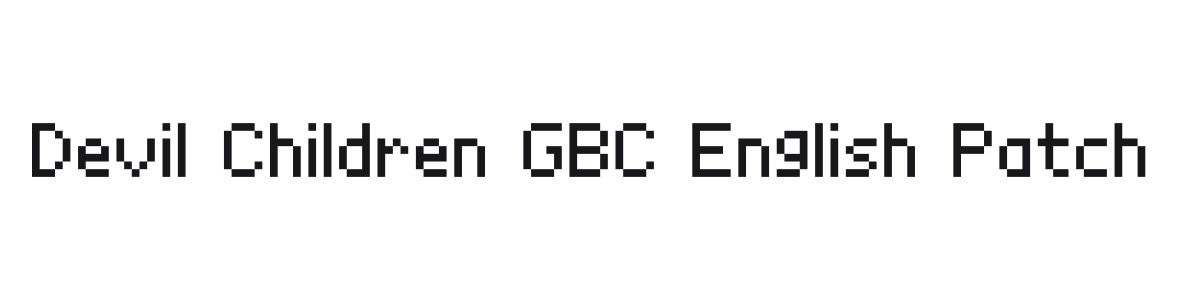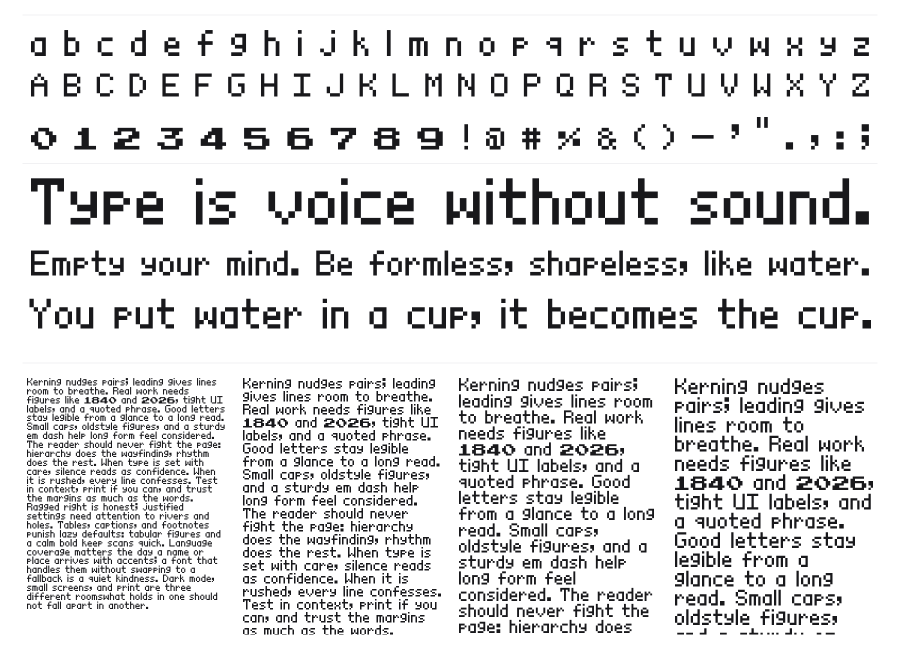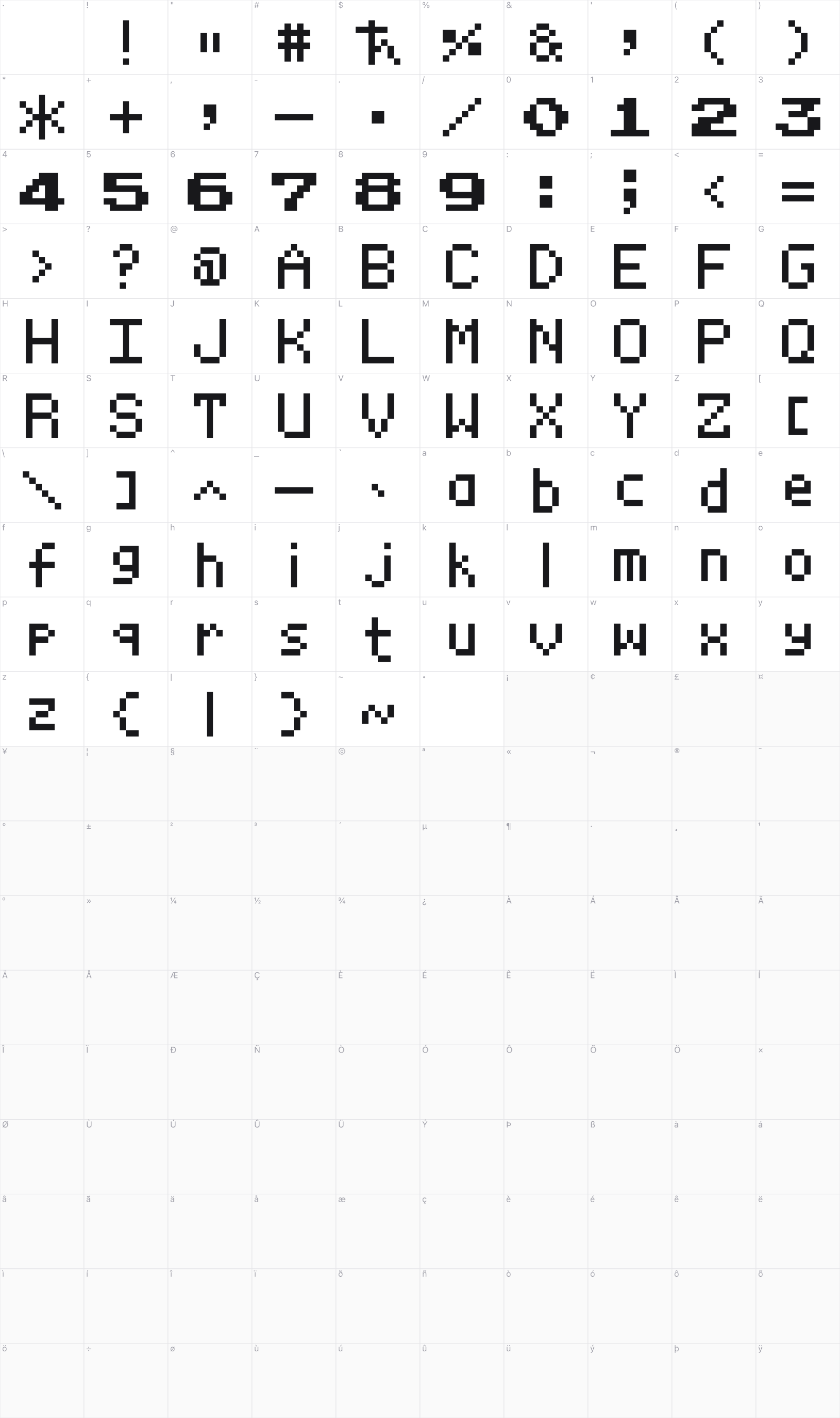
Devil Children GBC English Patch
Devil Children GBC English Patch is a faithful recreation of the pixel font from the 2021 fan-translation of Shin Megami Tensei: Devil Children Black Book for the Game Boy Color. Each character is built on a coarse square grid, capturing the blocky, utilitarian feel of late-90s handheld RPG dialogue boxes. It carries that specific flavour of cramped cartridge nostalgia that only GBC-era games had.